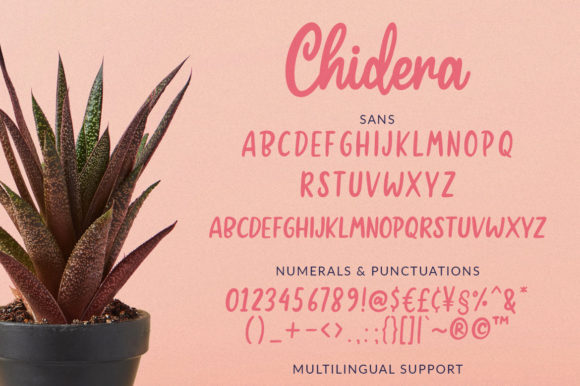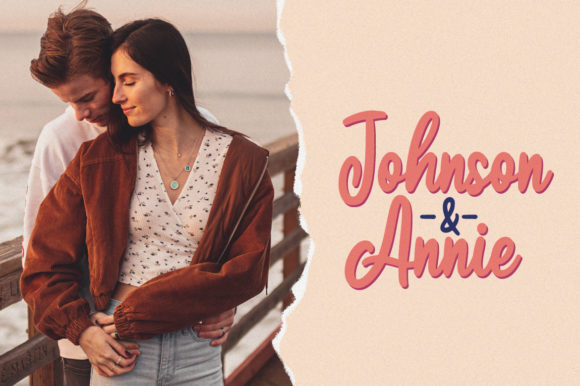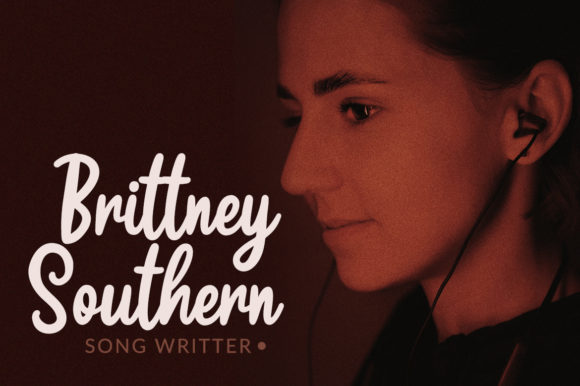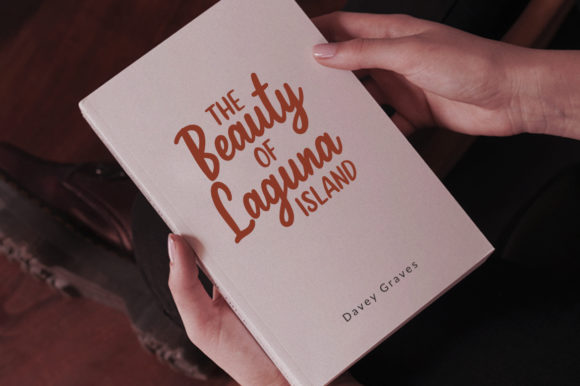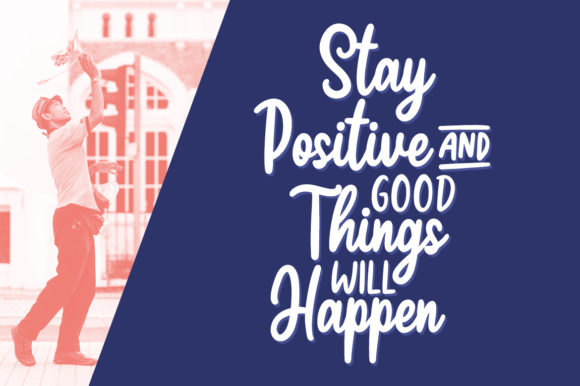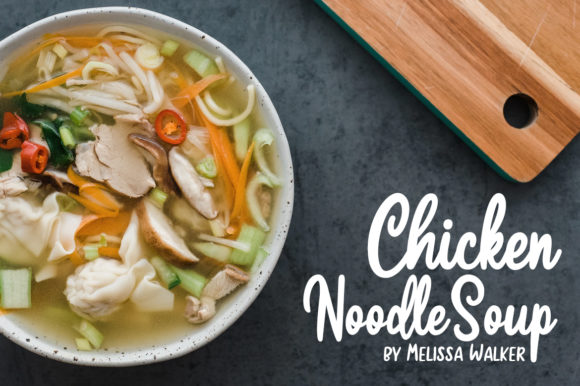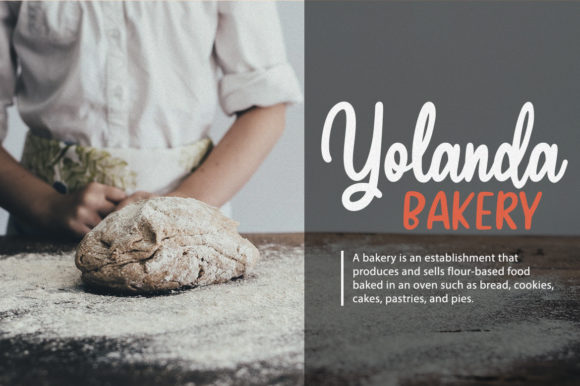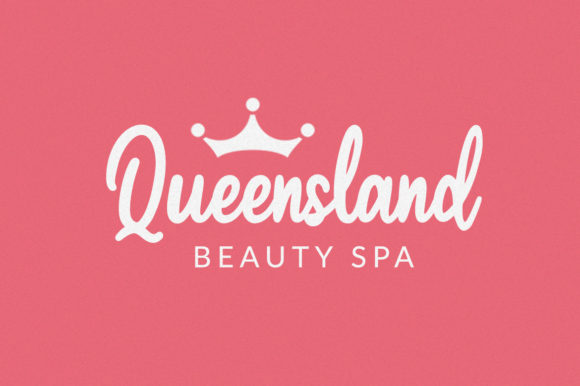
Chidera Font
About Chidera Font
Chidera is an elegant and modern handwritten font, carefully handcrafted to become a true favorite. Its casual charm makes it appear wonderfully down-to-earth, readable and, ultimately, incredibly versatile. Chidera will look outstanding in any context, whether it’s being used on busy backgrounds or as a standalone headline!